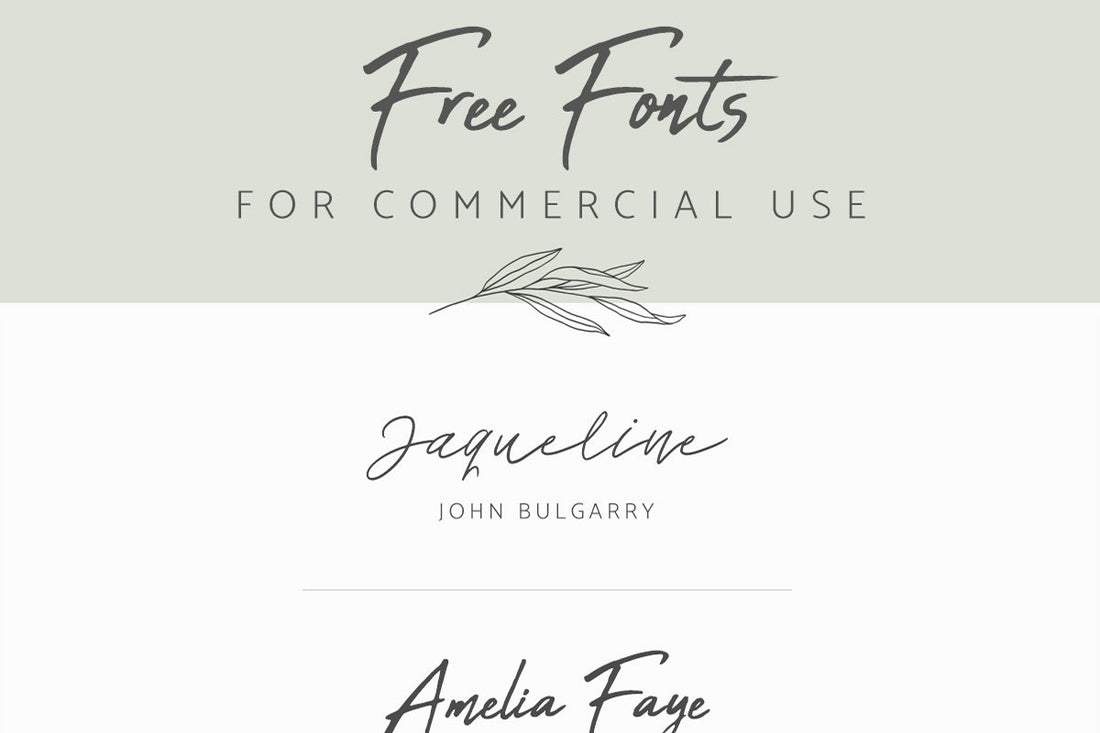
Signature fonts, brush fonts & script fonts alert! Here are 6 of my favorite fonts that are free for commercial use. These are all made by diverse talented font designers. Please check the license of the fonts for details of usage. Font LinksJohn Bulgarry | Abuget | Jaceline | Cephalonia | Reman | Ranget